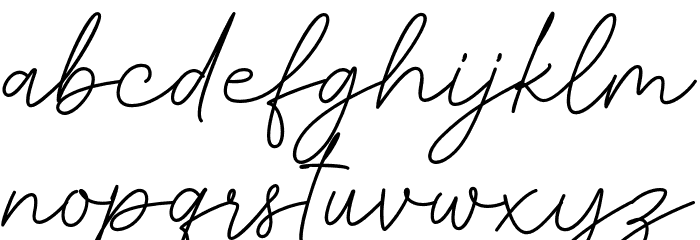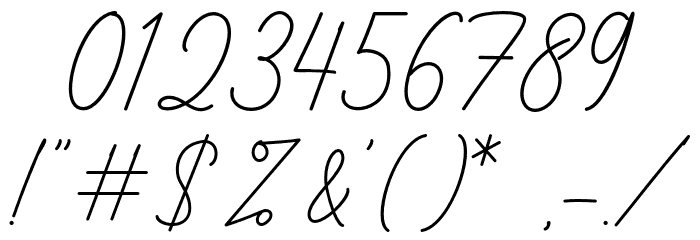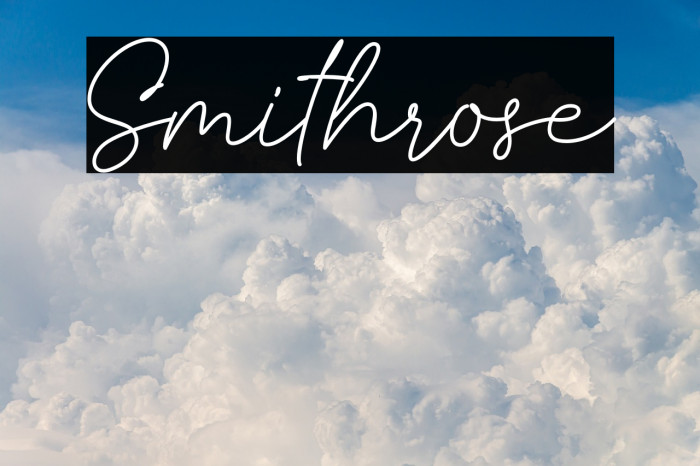
Smithrose Font
This elegant script font features a fluid and graceful design, characterized by its smooth, flowing lines and cursive style. The uppercase letters are slightly more elaborate, with gentle curves and loops that add a touch of sophistication. The lowercase letters maintain a consistent flow, enhancing readability while preserving the font's artistic flair. The numerals are clear and easy to distinguish, complementing the overall aesthetic. Special characters are thoughtfully designed to match the font's style, making it versatile for various uses. The font's delicate strokes and balanced proportions make it suitable for formal invitations, branding, and other creative projects.
A graceful and fluid script font with elegant cursive lines.
- Proposed Projects: Ideal for wedding invitations, elegant branding, greeting cards, and artistic projects.
- Overall Style: Elegant
- Use Case: Logos, Invitations, Artistic projects